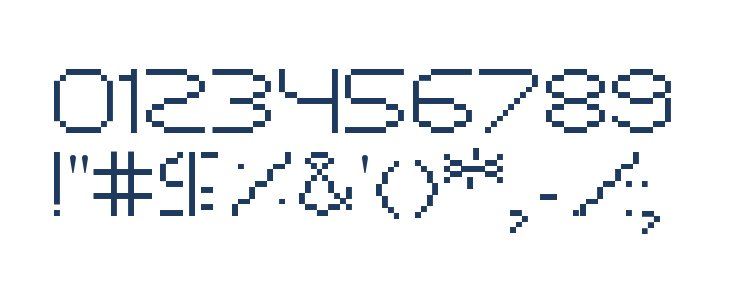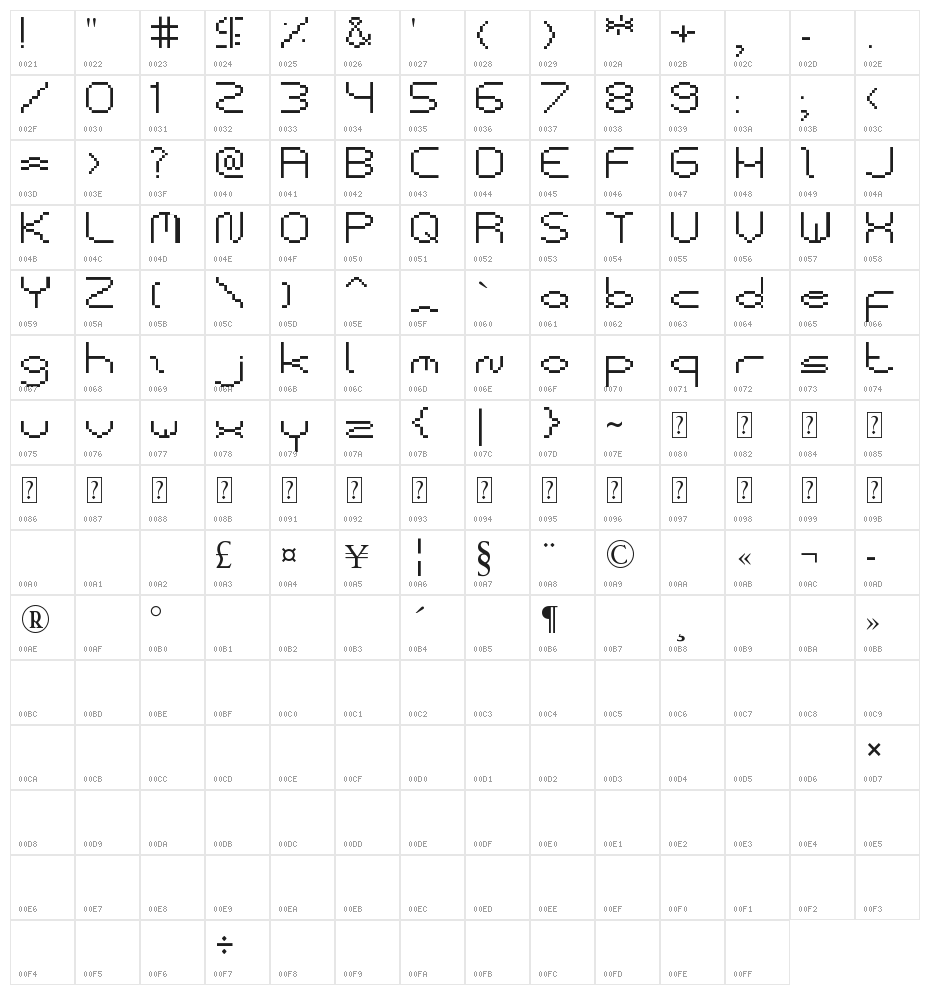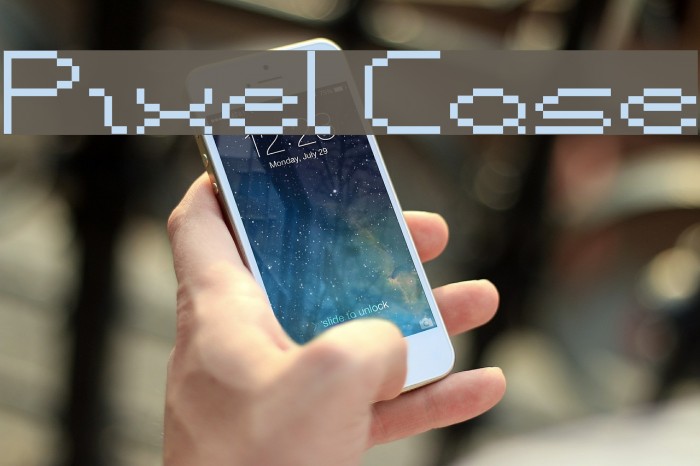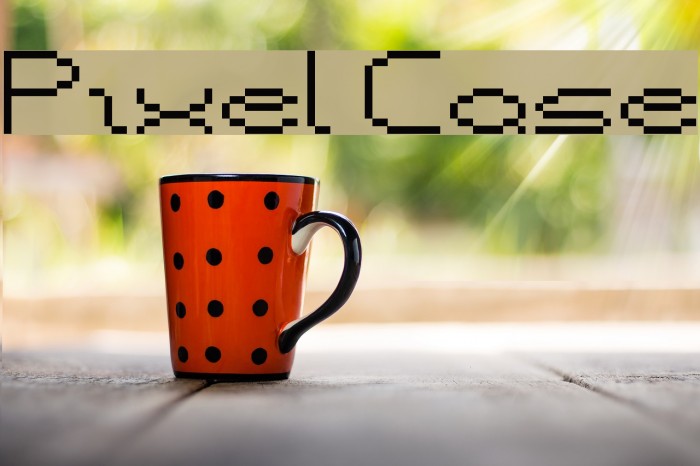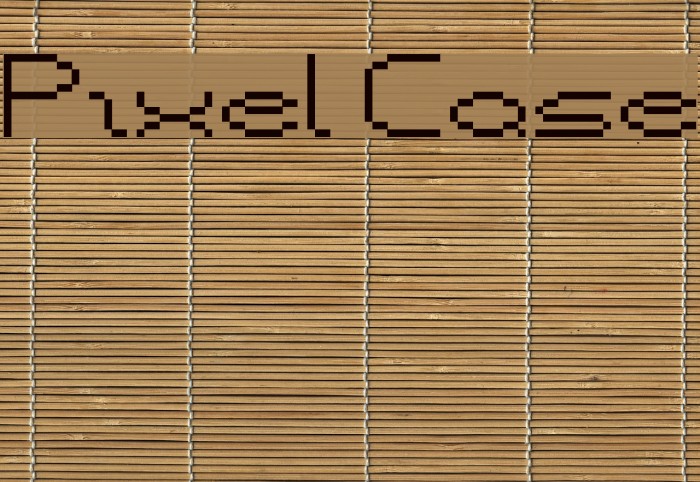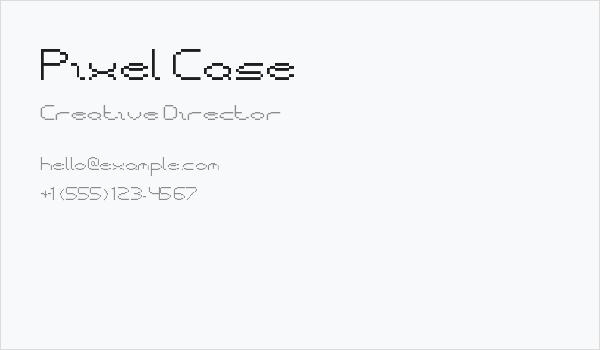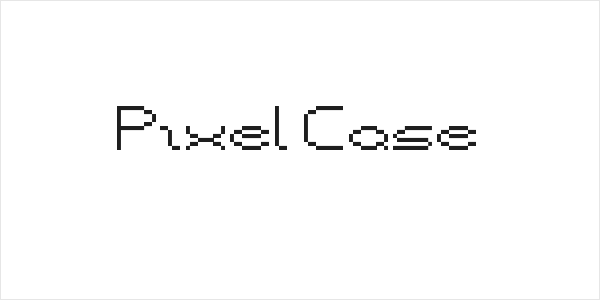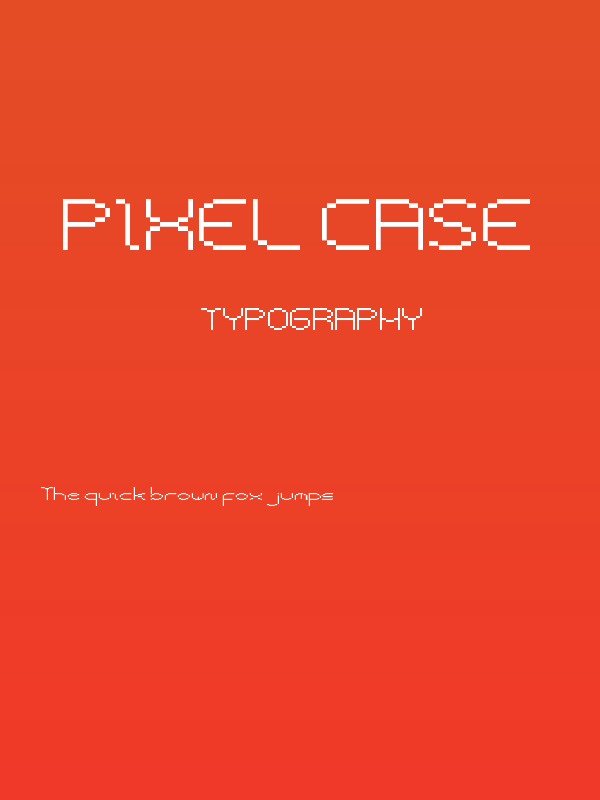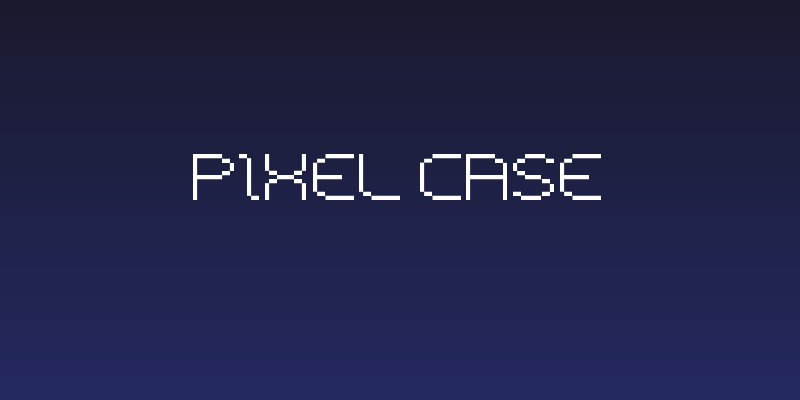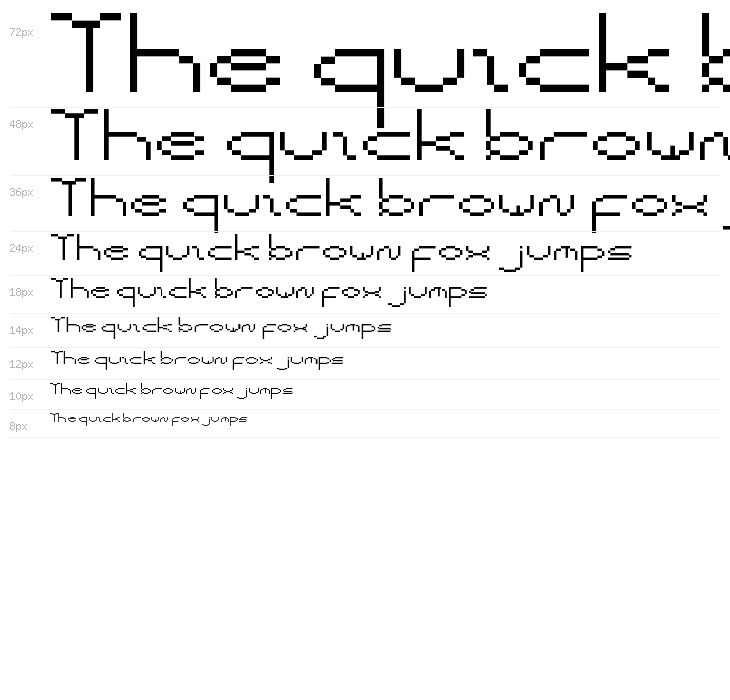
Pixel Case Font
Pixel Case Description
This font features a pixelated, blocky design reminiscent of early digital displays and retro video games. Each character is constructed with a grid-like precision, giving it a distinctly digital and geometric appearance. The uppercase and lowercase letters maintain a consistent height, with sharp angles and straight lines dominating the design. Numbers and special characters follow the same pixelated style, ensuring uniformity across all glyphs. The font's simplicity and clarity make it highly legible, even at smaller sizes, while its nostalgic aesthetic evokes a sense of classic computing and arcade games.
| Overall Style | Retro, Digital |
| Use Case | Logos, Headlines, Digital Art |
| Proposed Projects | Ideal for retro video game designs, digital art projects, tech-themed posters, and any creative work that seeks to evoke nostalgia for early computing. |